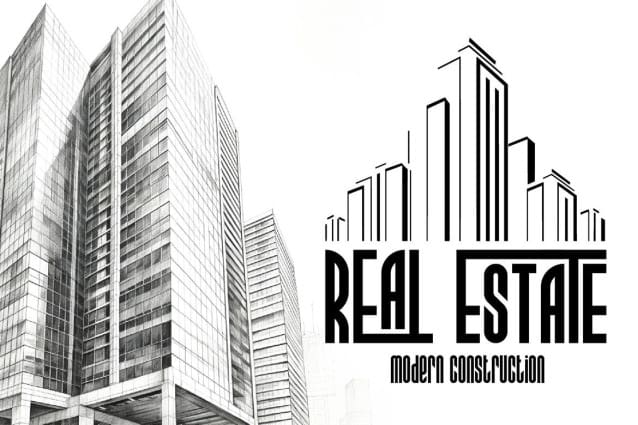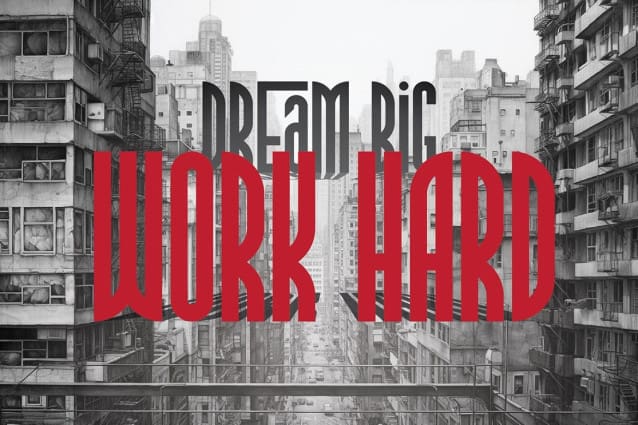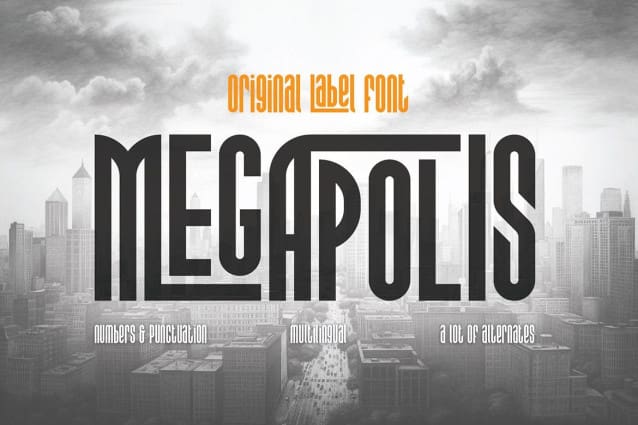
Megapolis Font
Megapolis Font is a verse style, vintage, retro, art deco, modern, stylized and sharp sans serif font. Features multi-lingual support & a lot of options – great for your new logo or branding initiatives.